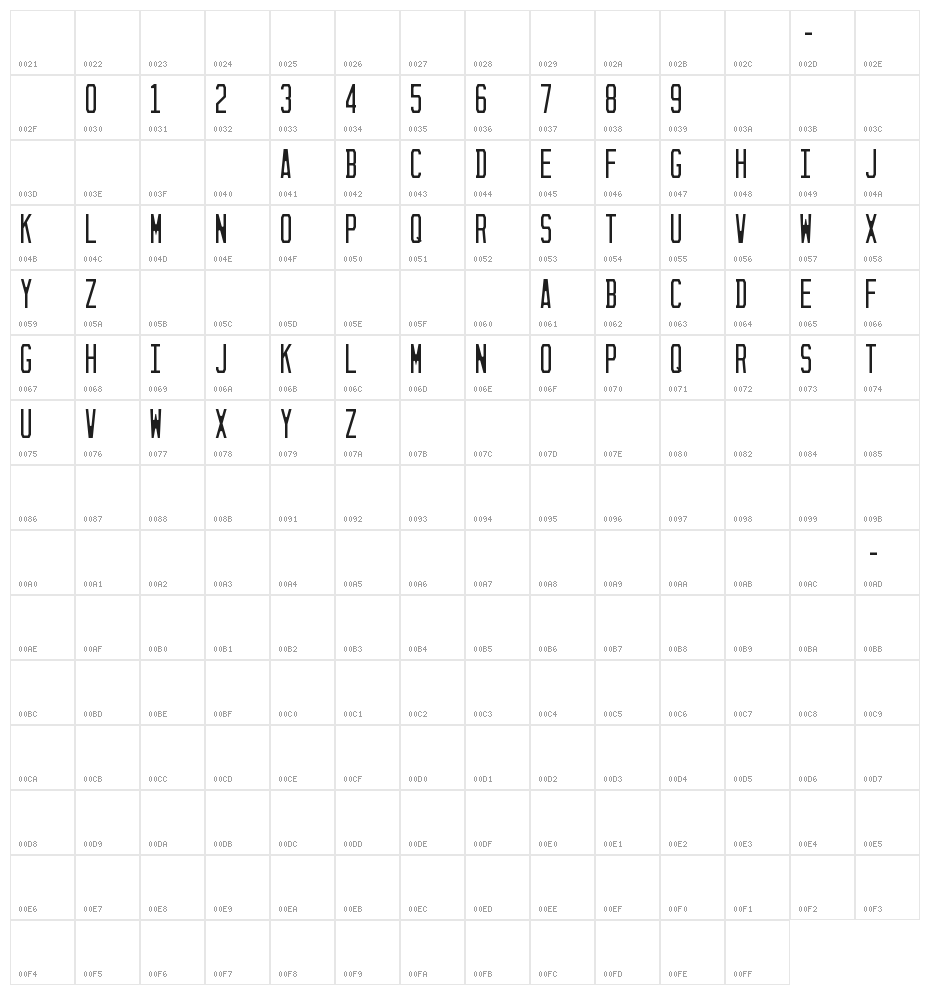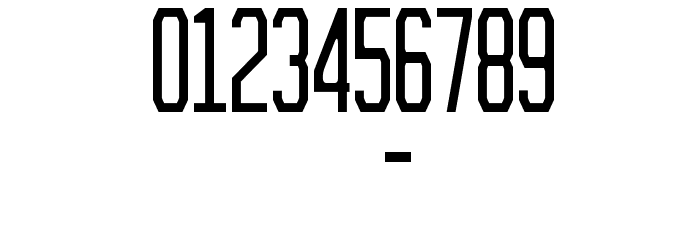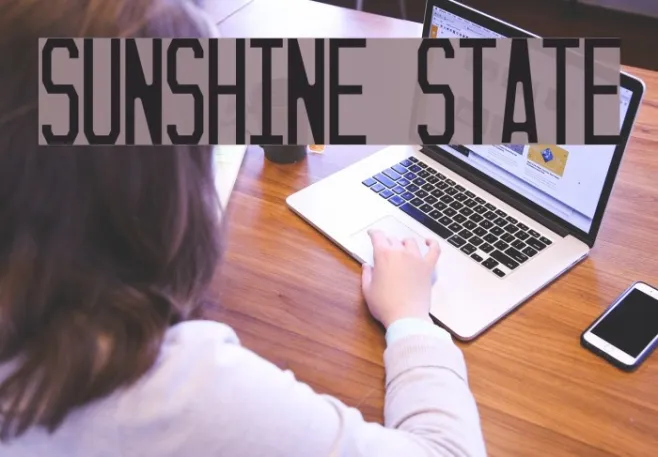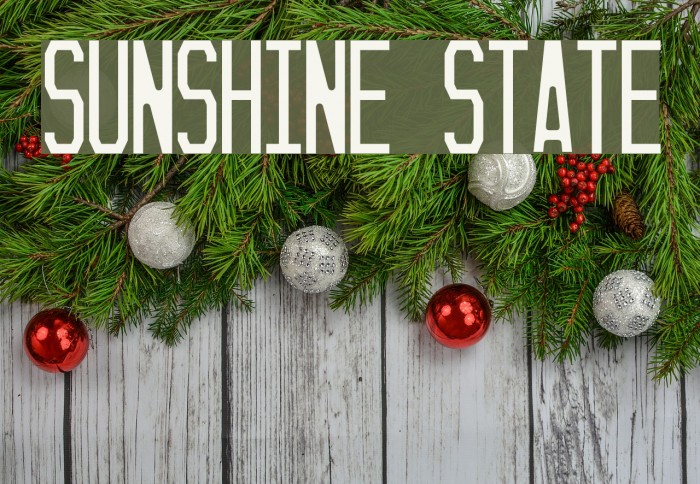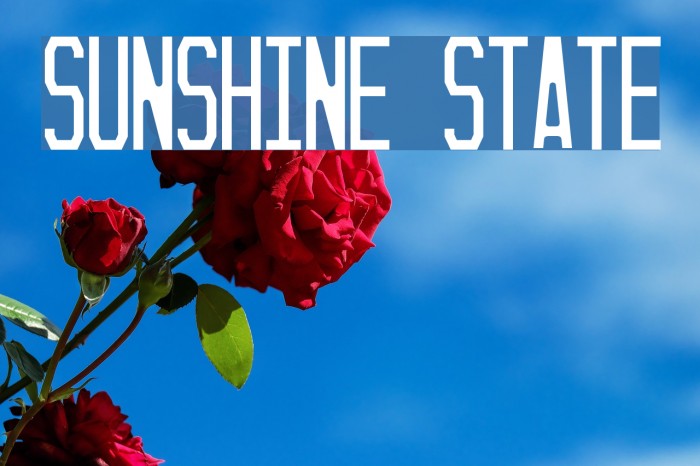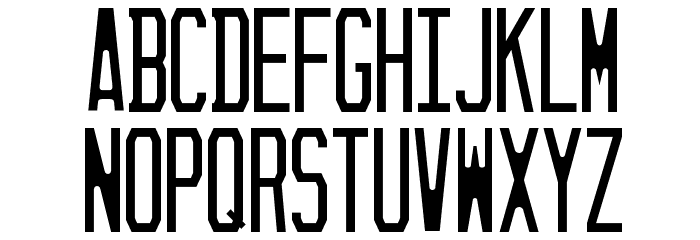
Sunshine State Font
Sunshine State Description
This font features a bold and condensed style with a modern and geometric appearance. The uppercase letters are tall and narrow, with consistent stroke widths that give a uniform look. The numbers follow the same design principles, maintaining the condensed and bold characteristics. The font's clean lines and lack of serifs contribute to its modern aesthetic, making it suitable for attention-grabbing headlines and titles. The uniformity in stroke width and the absence of decorative elements emphasize clarity and readability, even at smaller sizes.
| Proposed Projects | This font is perfect for branding projects, posters, and any design requiring a strong, modern typeface. It can be used effectively in digital and print media where impactful text is needed. |